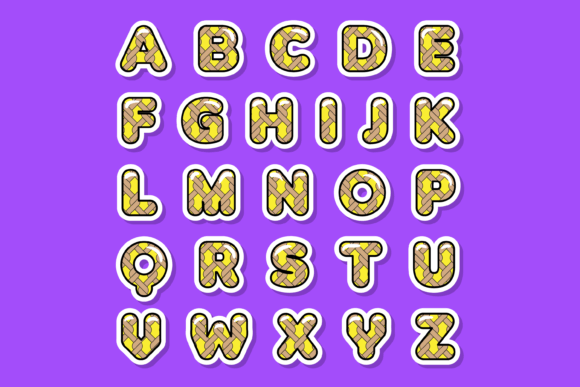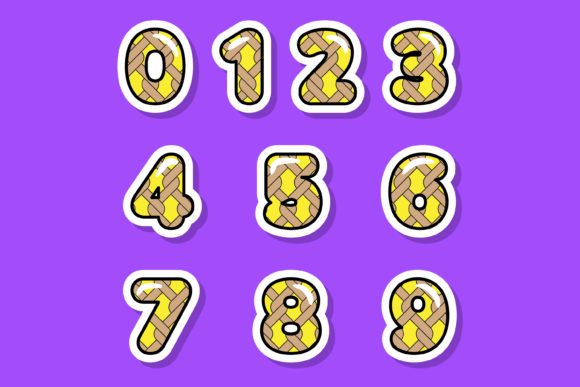
Introduction to Rope Knot Font
Do you ever find yourself stuck in a creative rut, staring at a blank page or canvas, searching for the perfect design element to bring your project to life? That’s where the Rope Knot Font comes in – a game-changing resource that adds a unique touch to any DIY craft, custom design, or creative endeavor. This fun and playful font is designed to stand out, and its versatility makes it a valuable addition to any designer’s toolkit.
With its transparent background and high-quality design, the Rope Knot Font is perfect for designers looking to add a personal touch to their projects. Whether you’re working on a custom invitation, a DIY decoration, or a creative marketing campaign, this font is sure to bring a smile to your face and a unique flair to your design. In this article, we’ll dive deeper into the world of the Rope Knot Font and explore its many benefits and uses.
Key Features of Rope Knot Font
- Unique, hand-drawn design that adds a touch of nautical charm to any creative project
- High-quality font with crisp, detailed graphics that print well at various resolutions
- Perfect for creating invitations, signs, and other designs that require a rustic, nautical feel
Honest Review: Rope Knot Font
I recently had the chance to work with the Rope Knot Font, and I must say, it’s a solid addition to any designer’s toolkit. As a design resource, it’s incredibly versatile and can add a unique touch to your creative project.
- ✨ High-quality design: The Rope Knot Font has a professional look and feel, making it perfect for any project where you need a polished, high-end aesthetic.
- ✨ Transparent background: The font has a transparent background, which makes it easy to use on complex designs and compositions.
- ⚠️ Limited character set: The Rope Knot Font has a relatively small character set, which may limit its use in certain projects.
- ⚠️ Not suitable for small text: Due to its complex design, the font may not be the best choice for small text or body copy.
Overall, I’m impressed with the Rope Knot Font. While it may have some limitations, it’s a great resource for designers who want to add a unique touch to their work. With its high-quality design and free download, it’s definitely worth checking out.
Rope Knot Font
The Rope Knot Font is a versatile design resource ideal for creative projects. With a transparent background and high-quality design, it’s perfect for adding a unique touch to your work. This font is available for free download, making it an excellent choice for designers on a budget.
Tips for Getting the Most Out of Rope Knot Font
To get the most out of the Rope Knot Font, try the following:
- Use it in combination with other design elements to create a unique look.
- Experiment with different font sizes and styles to add visual interest.
- Use it in a variety of creative projects, such as branding, packaging, and marketing materials.
Common Use Cases for Rope Knot Font
The Rope Knot Font is ideal